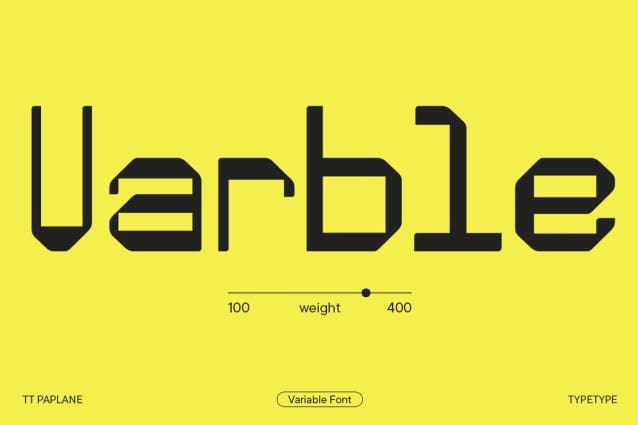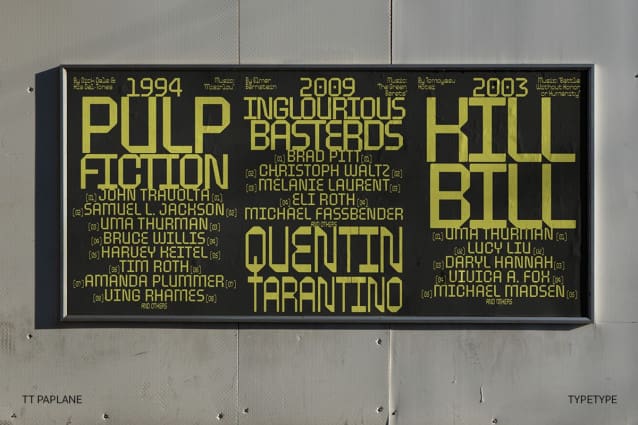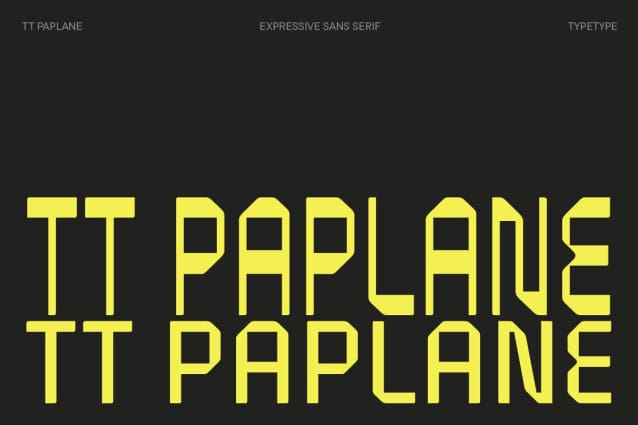
TT Paplane Font
TT Paplane is a squared-looking display sans serif. Its name, Paplane, comes from the phrase “paper plane.” This embodies the core idea of our font: the logic of letters is built in a way that makes them look like they are folded from a paper strip.
So, this sans serif stands out for its squared forms, 45-degree cuts, flowing outer contours, and asymmetrical smoothing of stroke ends. A playful feel of the font is achieved by varying proportions of lowercase and uppercase characters. Other captivating details include the drops in the Cyrillic alphabet, the forms of the letter “i” and the Cyrillic letter “т,” the tails of “ц” and “щ,” and the serifs of the letters “i” and “l.”
TT Paplane includes two font styles with different aesthetics: Regular and Thin. The Regular style is low-contrast and more paper-looking. The Thin style, in turn, features reverse contrast while having the same glyph forms, making the font’s design look like a barcode in use. Uppercase characters in both font styles are noticeably narrower than lowercase, and the letter proportions are closer to monospaced. In addition, the typeface includes a variable font with a weight variation axis.
The unusual features of TT Paplane will shine best on posters and packaging, implemented into branding, and as an eye-catching element on websites and apps. This font can help you infuse your design with an informal mood, adjust it to reflect the atmosphere of the 80s or 90s, and add uniqueness to your project, stepping outside the familiar confines.